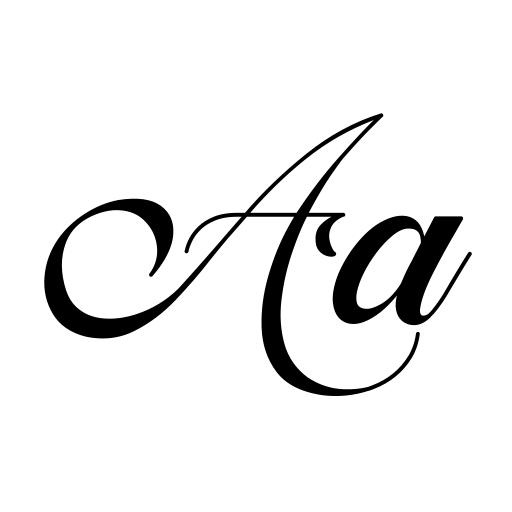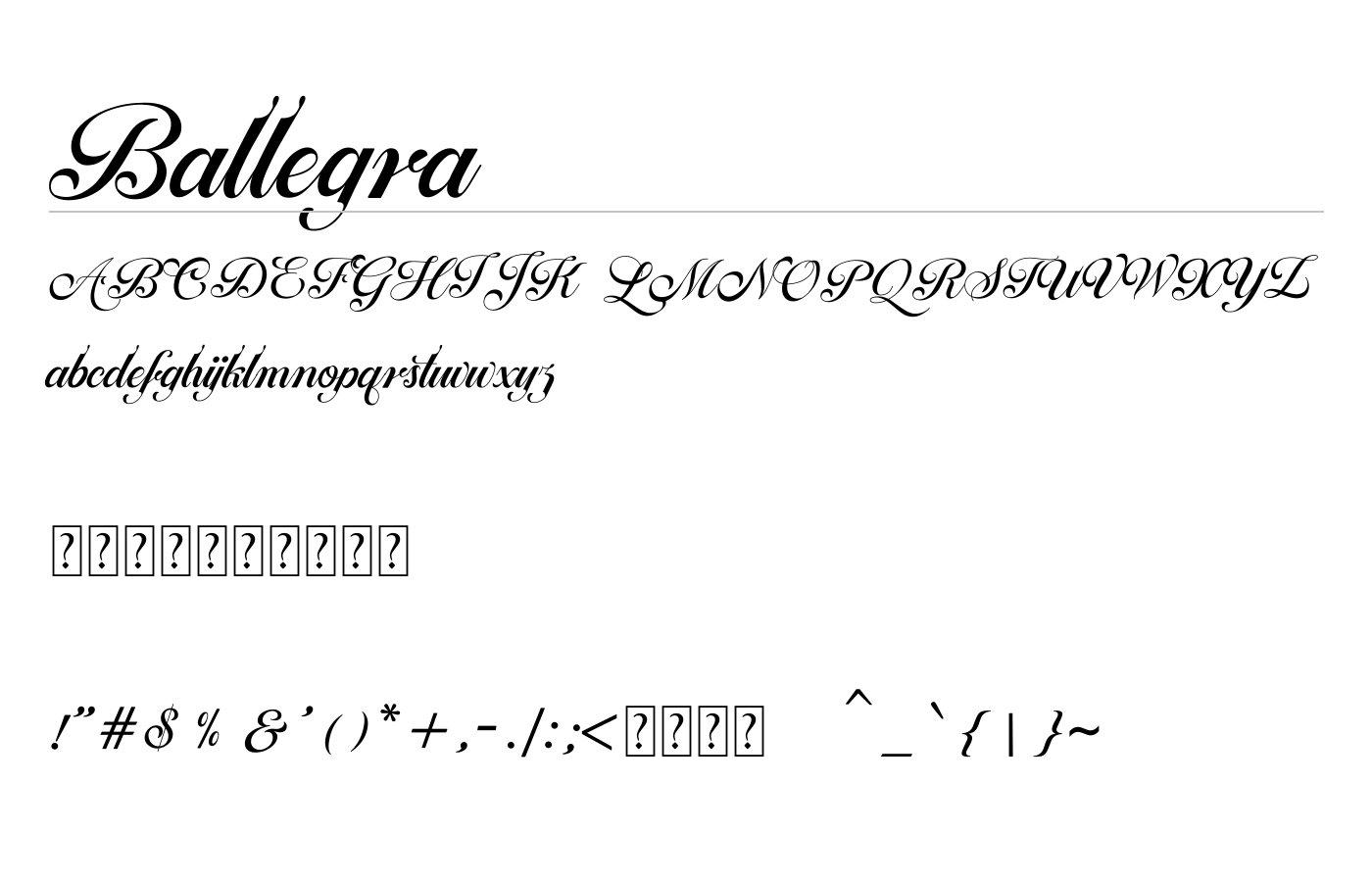
Ballegra is an elegant script font with a refined, calligraphic style characterized by smooth, flowing lines and medium contrast strokes. Its ornate letterforms and graceful curves make it ideal for luxurious branding, invitations, and sophisticated headlines that require a classic yet stylish touch. This font’s formal and decorative nature lends itself well to fashion, beauty, and high-end editorial projects where a sense of elegance and tradition is desired.
Ballegra Font
About Ballegra Font